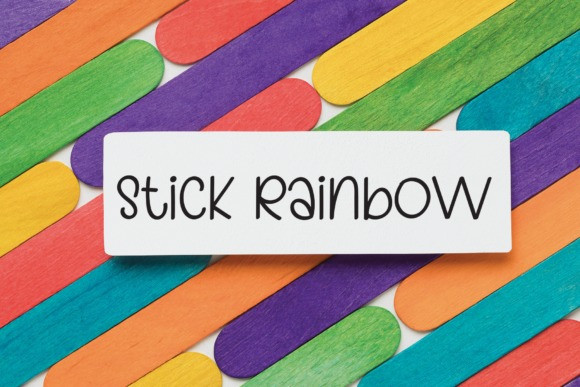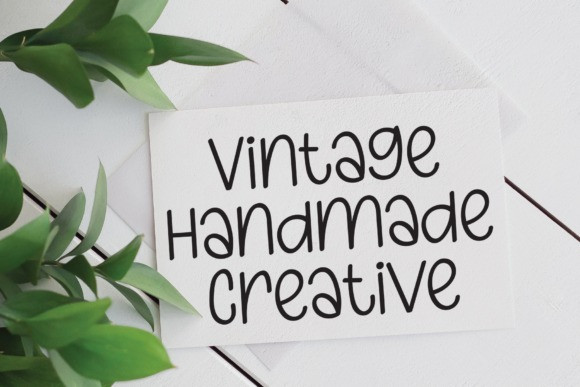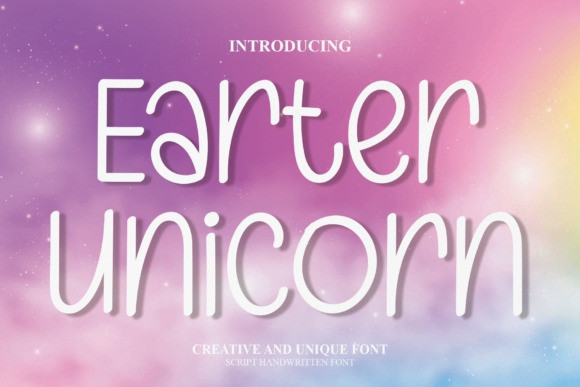
Earter Unicorn Font
Earter Unicorn Font is a quirky, casual and friendly handwritten font. The characters are perfect for wall hangings, wedding invitations, social media post logos, advertisements, product packaging, product designs, labels, photography, watermarks, invitations, stationery and any project that requires modern typography.